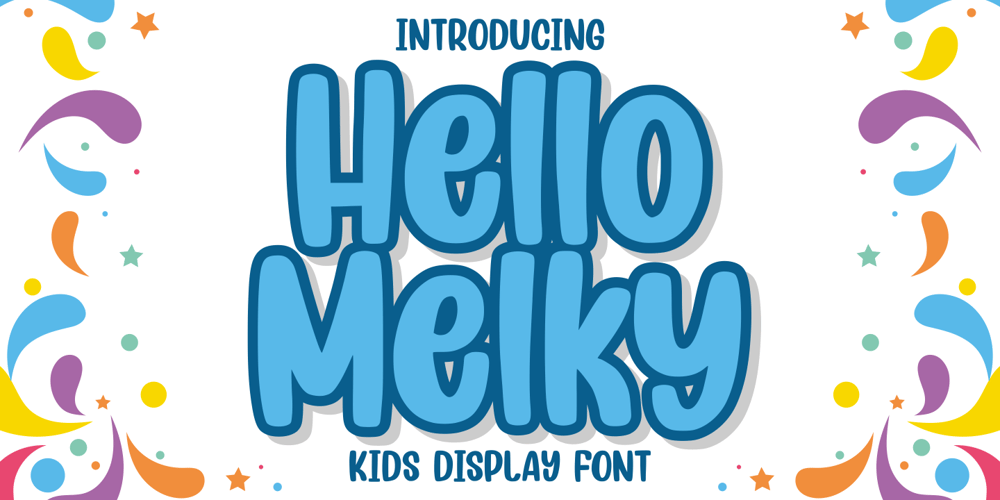
Hello Melky Font Family was designed by Good Java and published by Good Java Studio. Hello Melky contains 1 styles and family package options. Welcome to: Hello Melky – a Kids Display FontIt’s smooth, it’s funny, it’s fun, and it’s very nice: it’s Hello Melky – a Kids Display Font Mixed fonts with many possible combinations.Everything is made with the same brush, and everything is the same size as Hello Melky, so you can be sure they will work well together! It is suitable for you to use in making t-shirt design, quote, label, packaging, logo type, or long writing. Because we have compiled kerning and matrices that are tailored to your needs.